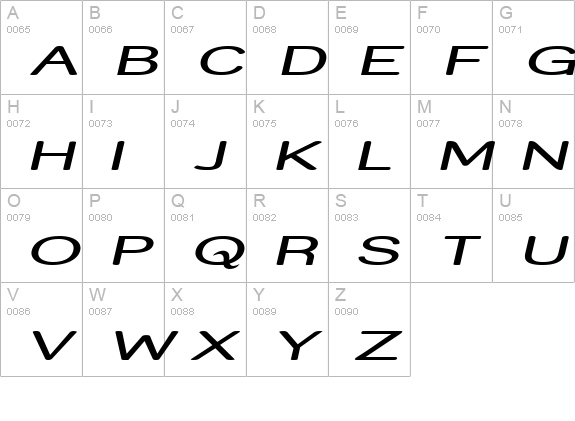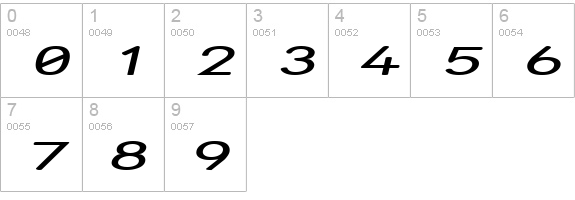
Street - Expanded Italic is a distinctive, extended-width, italic variant in the Street typeface family \xE2\x80\x94 well suited to design and typography projects.
Street - Expanded Italic is a sleek and modern font that exudes sophistication and style. Its italicized design adds a touch of elegance to any text, making it perfect for projects that require a refined and contemporary look. The expanded width of the letters gives this font a bold and impactful presence, making it ideal for headlines and titles. Best of all, Street - Expanded Italic is available for free download at FontsMarket.com. This means you can easily access and use this stylish font for all your design needs without breaking the bank. Whether you're creating posters, flyers, or digital content, Street - Expanded Italic is sure to make a statement and elevate your project to the next level. Download it now and add a touch of sophistication to your designs!